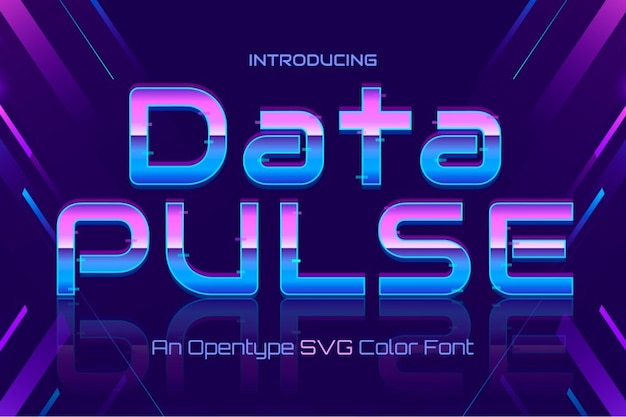
Data Pulse is a sleek, futuristic typeface that glows with cyber-inspired neon energy. Its sharp, high-tech letterforms pulse with digital precision, perfect for sci-fi themes, tech branding, and modern interfaces. With a bold, electrified aesthetic, Data Pulse brings a sense of motion and innovation, making every word feel like a signal from the future